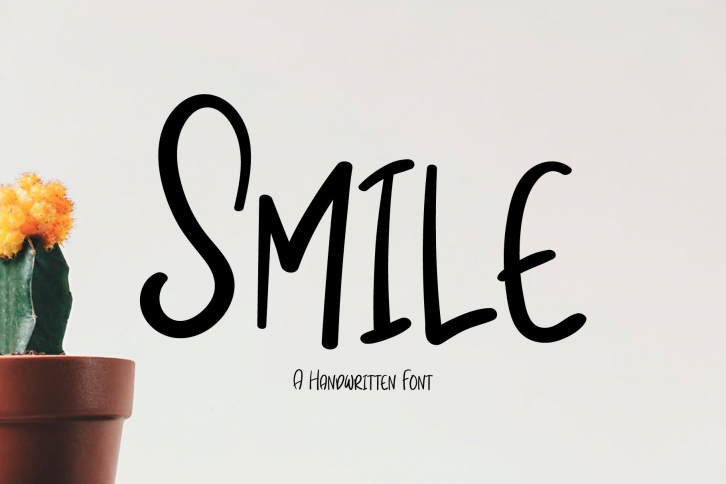
Smile is a beautiful font that was designed by TS STUDIO ARTS. It's a great choice for designers and creatives who need such a font. It was released on November 12, 2020 and the file size is 20.95 MB. Smile may give a more youthful, expressive and casual look to your project. It is a very beautiful, refined, elegant, and high-quality font.